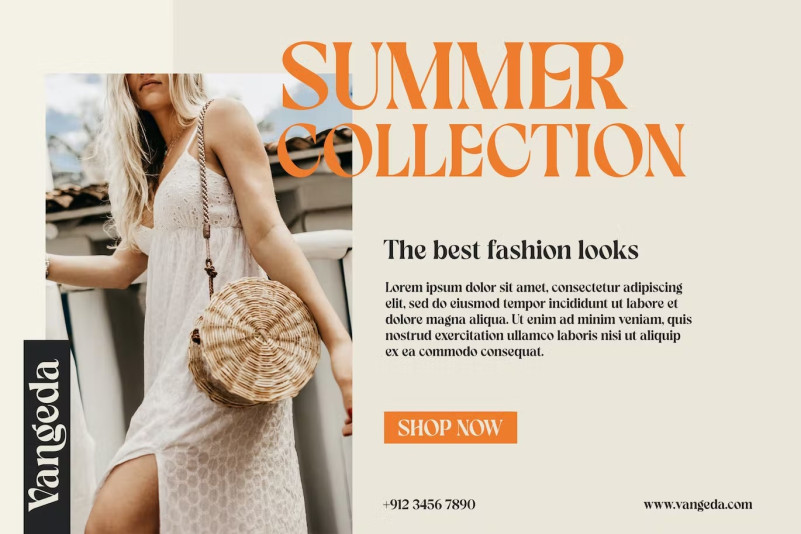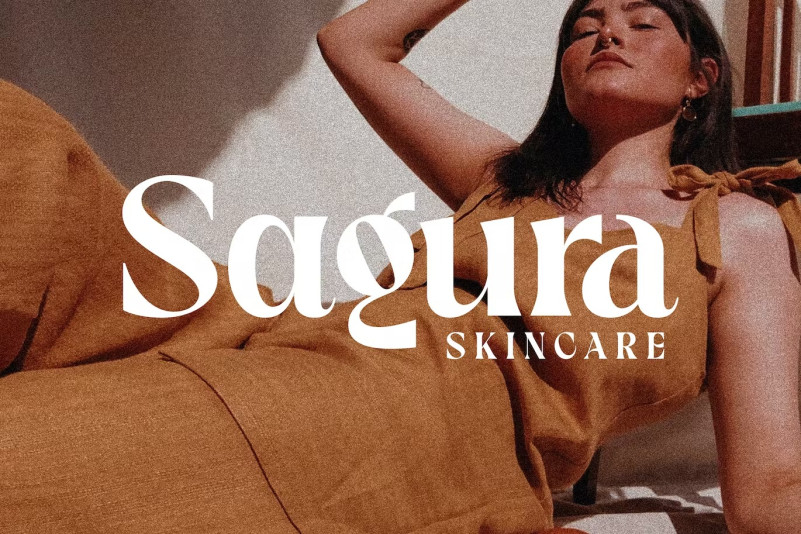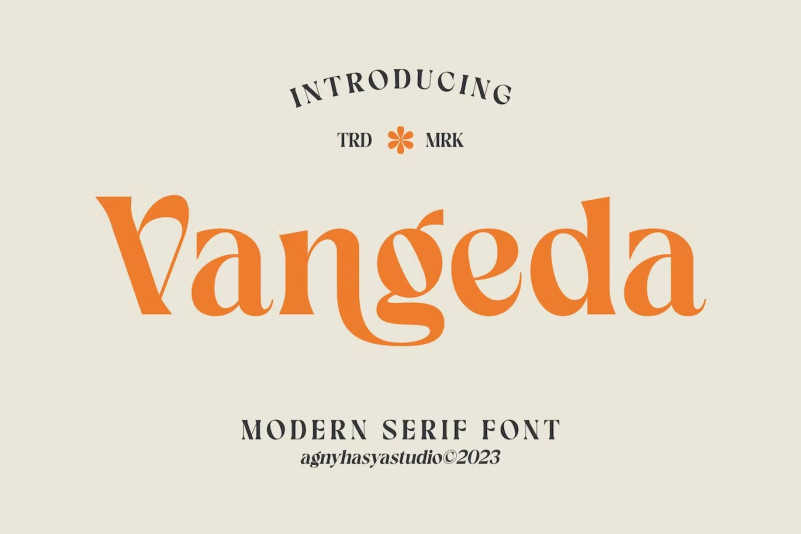
Vangeda Font
Vangeda Font is a modern and elegant Serif typeface created with 2 (two) styles (regular and italic) and glyph variations such as alternates and ligatures. Combine it and create your perfect typography design!
Perfect for your design projects like logos, branding, advertising, product design, stationery, magazine design, book title/cover design, photography, quote art, wedding designs, fashion designs, special events, labels, product packaging, etc.